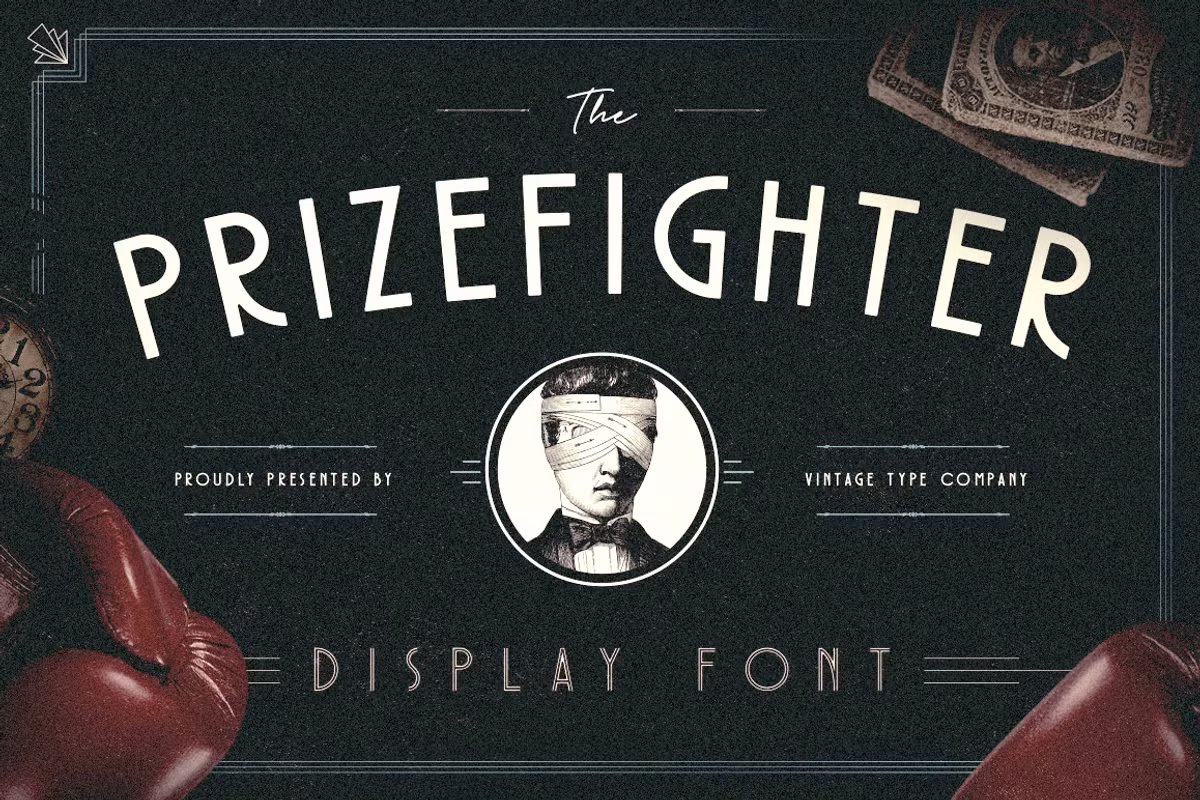
Prizefighter Display Font Free Download is a bold, vintage-style typeface inspired by classic boxing posters and old-school Americana. With its strong lines, condensed structure, and retro flair, this font is perfect for logos, posters, merchandise, signage, and any project that needs a punch of character and grit. It’s a go-to choice for designs that aim to feel tough, timeless, and full of attitude.
Whether you're working on sports branding, barbershop labels, or gritty apparel designs, Prizefighter delivers a knockout aesthetic with vintage charm and modern usability. It performs best in headlines and attention-grabbing layouts.